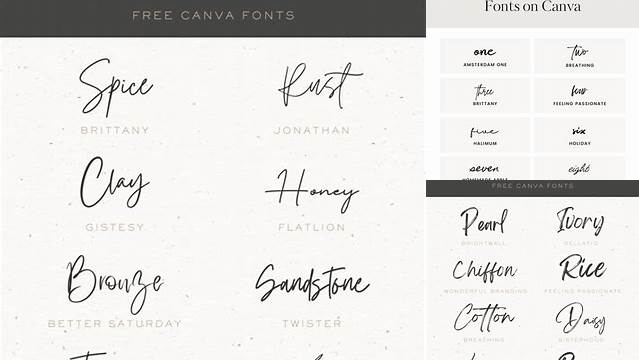
Best Handwriting Fonts In Canva: Free Picks!
Hey guys! Looking to spice up your Canva designs with some awesome handwriting fonts? You've come to the right place! Choosing the right font can totally transform your project, making it feel personal, authentic, and super engaging. Let’s dive into some of the best handwriting fonts available in Canva that will make your designs pop!
1. Why Choose Handwriting Fonts in Canva?
So, why should you even bother with handwriting fonts? Well, for starters, they add a human touch to your designs. In a world dominated by clean, sterile digital fonts, handwriting fonts stand out by offering a sense of warmth and authenticity. They can make your designs feel more approachable and relatable, which is perfect for projects where you want to connect with your audience on a personal level. Whether you're designing invitations, social media graphics, or branding materials, handwriting fonts can help you create a unique and memorable look.
Using handwriting fonts in Canva is also incredibly easy. Canva offers a wide variety of fonts, including many fantastic handwriting options, right at your fingertips. You don't need to download or install anything – just search, select, and start designing! Plus, Canva’s intuitive interface makes it simple to experiment with different fonts and see what works best for your project. Whether you’re a seasoned designer or just starting out, Canva makes it easy to incorporate handwriting fonts into your creative workflow.
2. The Allure of Script Fonts
Script fonts are a subcategory of handwriting fonts that mimic the flowing strokes of cursive writing. They often evoke a sense of elegance, sophistication, and romance, making them perfect for projects that need a touch of class. Think wedding invitations, greeting cards, and high-end branding materials. A well-chosen script font can instantly elevate your design and give it a luxurious feel.
However, it's important to use script fonts judiciously. Because they can be more difficult to read than simpler fonts, it's best to use them for headings, titles, or short phrases. Avoid using script fonts for large blocks of text, as this can strain the reader's eyes and make your message harder to understand. When used correctly, script fonts can add a touch of magic to your designs, but it's all about finding the right balance between style and readability.
3. Best Free Handwriting Fonts for Invitations
Creating invitations? Handwriting fonts are your best friend! They add a personal, intimate feel that perfectly sets the tone for your event. For a wedding invitation, consider using a delicate, flowing script font like "Blessed Print" or " আছিরা (Achira)". These fonts have a romantic quality that will make your invitations feel extra special.
If you're designing invitations for a more casual event, like a birthday party or a backyard barbecue, you might want to opt for a more playful handwriting font. Fonts like "Amatic SC" or "Permanent Marker" have a fun, whimsical vibe that's perfect for informal occasions. Remember to pair your handwriting font with a simple, easy-to-read font for the body of your invitation to ensure that all the important details are clear and legible.
4. Top Handwriting Fonts for Branding
When it comes to branding, choosing the right handwriting font can help you create a unique and memorable identity. A well-chosen font can communicate your brand's personality, values, and overall aesthetic. For example, if you're creating a brand for a children's boutique, a playful handwriting font like "Rockwell" or "Walter Turncoat" could be a great choice. These fonts have a childlike quality that will resonate with your target audience.
On the other hand, if you're branding a luxury skincare line, you might want to opt for a more elegant script font like " আছিরা (Achira)" or "Great Vibes". These fonts have a sophisticated feel that will convey a sense of quality and exclusivity. Just remember to choose a handwriting font that aligns with your brand's overall message and target audience. Consistency is key when it comes to branding, so make sure to use your chosen font across all of your marketing materials.
5. Making Social Media Graphics Stand Out
In the crowded world of social media, it's more important than ever to make your graphics stand out. Using handwriting fonts is a great way to grab attention and add a personal touch to your posts. Whether you're creating Instagram stories, Facebook ads, or Twitter headers, a well-chosen handwriting font can help you communicate your message more effectively.
For social media graphics, it's important to choose a handwriting font that is both eye-catching and easy to read. Fonts like "Amatic SC" or "Permanent Marker" are great for headlines and short phrases, while simpler handwriting fonts like "Open Sans" or "Roboto" are better for longer blocks of text. Experiment with different font combinations and see what works best for your brand. And don't forget to use Canva’s text effects, like shadows and outlines, to make your handwriting fonts even more impactful.
- Font Spacing Issues: Adjust the letter spacing and line height to improve readability. Canva offers tools to customize these settings.
By addressing these common issues, you can ensure that your handwriting fonts look their best in your Canva designs.